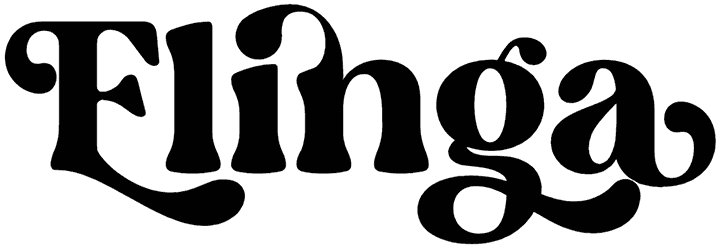
Elinga is a serif font that you can never remove from your best fonts list. This luxury serif font can give information about your brand to the viewer with an eloquent expression and leave a powerful yet elegant image in their mind.
Therefore, in any logo, poster, or business document where you need a simple and strong look, Elinga, with its 4 ordinary and outline styles, can be the best representative of your brand.